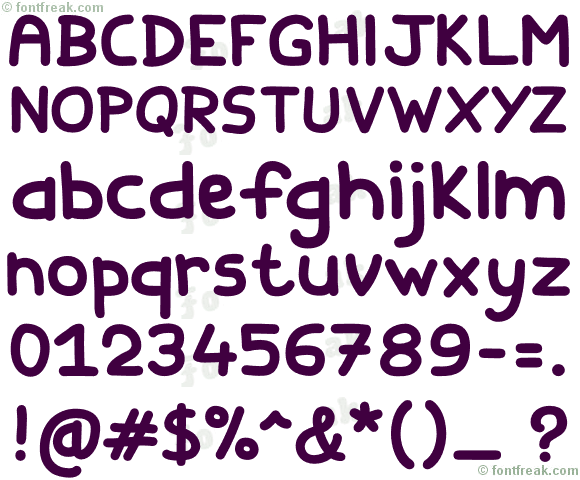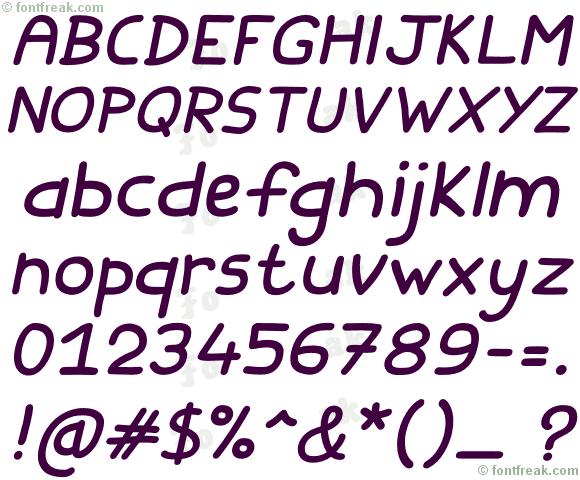
FishesFriends-Bold
FishesFriends-Italic
FishesFriends
FishesFriends-BoldItalic
FishesFriends-Bold by Youssef Habchi is a distinctive display font that captures attention with its playful and unique style. This font, categorized as a decorative typeface, features rounded edges and a bold stroke weight that creates a friendly and approachable vibe. The contrast is moderate, allowing for clarity while maintaining a whimsical character. The spacing is well-balanced, making it easy to read in various contexts, which enhances its versatility.
Ideal for a range of creative projects, FishesFriends-Bold excels in applications such as children’s book covers, playful branding, restaurant menus, and event flyers. Its vibrant personality makes it particularly suitable for designs aimed at younger audiences or those seeking a fun, lighthearted aesthetic. Graphic designers and small business owners will find this font to be a valuable addition to their toolkit, as it allows them to convey a sense of warmth and friendliness in their work.
One of the standout features of FishesFriends-Bold is its ability to evoke a sense of joy and creativity. Whether used in digital media or print, this font adds a unique touch that can elevate any project. The font's freeware license makes it accessible to all, encouraging content creators to experiment with its playful design. For those looking to infuse their designs with character, the FishesFriends-Bold font free download offers an excellent opportunity to do so without any financial commitment. Its charm and versatility make it a standout choice in the realm of decorative fonts, ensuring it will leave a memorable impression on any viewer.